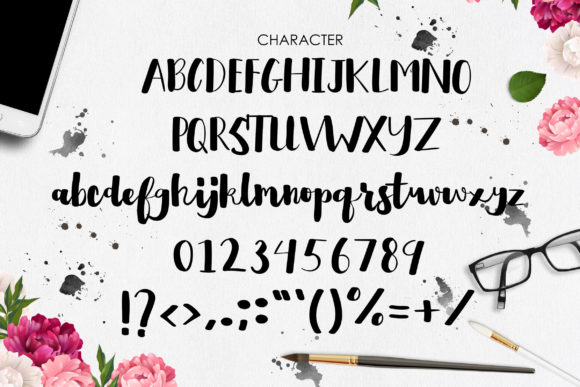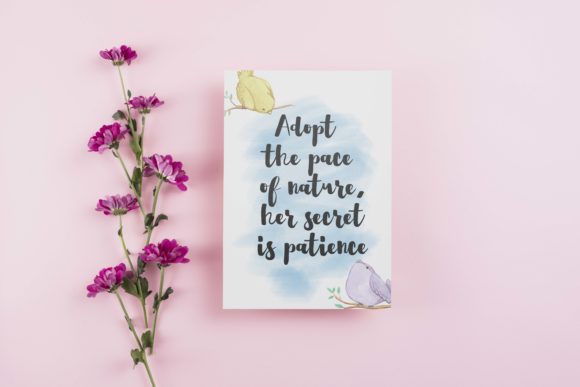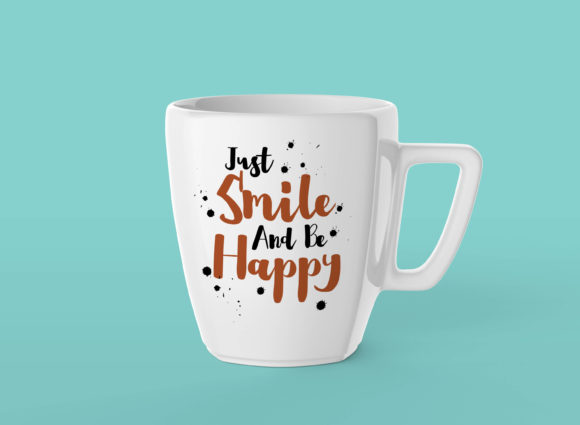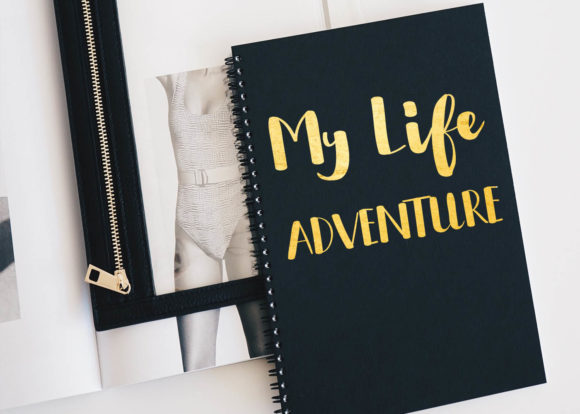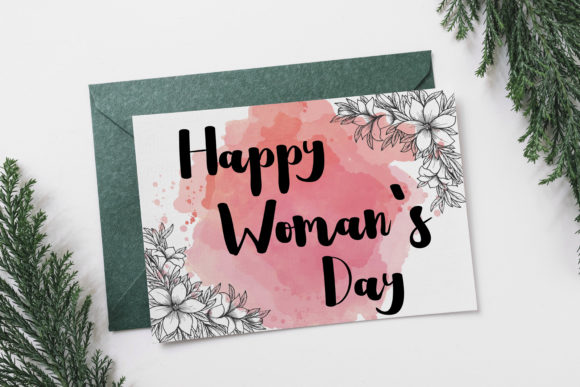
Unlocking the Art of Handwritten Charm: Introducing the Asmirandah Font
Have you ever sat with a blank piece of paper, a pen, and a spark of creativity, waiting for the perfect idea to emerge? For designers, that moment of inspiration is often the starting point for a project that will bring their vision to life. And what better way to add a touch of personality to your designs than with a beautiful handwritten font?
Enter the Asmirandah Font, a lovely handwritten calligraphy font that combines classic style with a modern twist. Whether you’re creating a logo, wedding invitation, or signage, this versatile font is the perfect choice for adding a touch of elegance and sophistication to your work. Its value lies in its ability to evoke emotions and create a lasting impression, making it a valuable tool for designers looking to elevate their designs and connect with their audience.
Asmirandah Font Key Features
- Font Family: Asmirandah Font is a script font, designed to resemble handwritten text.
- Unique Characteristics: Asmirandah Font features a flowing, cursive design with elegant flourishes, making it perfect for creative and artistic applications.
Asmirandah Font Review
Overall, I think the Asmirandah font has some great qualities that make it a decent choice for certain projects. ✨ Firstly, its unique and elegant script design makes it perfect for creating a touch of sophistication and luxury in your designs. ✨ The font also has a wide range of styles and weights, which can be useful for creating visual hierarchy and adding depth to your text. ✨ Additionally, the font is highly legible, making it suitable for body text and other long-form content.
However, there are some limitations to the Asmirandah font that may make it less suitable for certain projects. ⚠️ One of the main issues is that the font can be quite ornate and may not be ideal for projects where simplicity is key. ⚠️ Additionally, the font may not be as versatile as some other script fonts, and it may not work well with certain color schemes or backgrounds.
Here are some pros and cons of the Asmirandah font:
- Unique and elegant script design
- Wide range of styles and weights
- Highly legible
- May be too ornate for simple projects
- May not be as versatile as other script fonts
- May not work well with certain color schemes or backgrounds
Overall, I think the Asmirandah font is a solid choice for projects that require a touch of elegance and sophistication. However, it may not be the best choice for projects where simplicity and versatility are key.
- Use the font’s advanced features, such as ligatures and swashes, to add flair to your design.
- Use the font’s elegant and sophisticated style to add a touch of class to your presentation or document.
- Use the font in conjunction with other elegant fonts to create a sophisticated look.
- Use the font’s advanced features, such as ligatures and swashes, to add flair to your design.
Asmirandah Font is commonly used in:
- Use the Asmirandah Font as the main title font for the wedding invitation.
- Pair the font with a bold sans-serif font for the date and location.
- Add ornate illustrations or florals to complement the elegant feel of the font.
- Use a pastel color palette to create a soft, romantic look.
- Add a custom illustration of the couple or a special location to make the invitation more personal.
- Use the Asmirandah Font as the main title font for each art piece or journal entry.
- Pair the font with a bold sans-serif font for the date and title of each piece.
- Add bold, colorful illustrations or textures to complement the elegant feel of the font.
- Use a bold, bright color palette to create a modern and edgy look.
- Add a mix of illustrations, photographs, and text to
Compared to Asmirandah Font, Alex Brush has a more delicate and whimsical feel, making it
Creative Project Ideas Using Asmirandah Font
Create a unique and eye-catching wedding invitation that incorporates the Asmirandah Font. This elegant script font will add a touch of sophistication to your design.
Project 2: Modern Art Journal
Design a modern art journal that showcases the unique characteristics of the Asmirandah Font. This font’s elegant script will add a touch of sophistication to your journal.